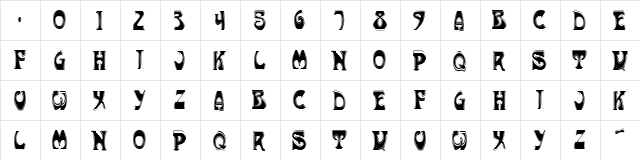
NouveauUneInline Regular
Design Context for NouveauUneInline Typeface
NouveauUneInline brings ornamental detail and strong personality to headlines and identities, where visual impact matters more than quiet functionality.
Font Pairing: Pair with a clean neutral sans-serif for body copy to let NouveauUneInline's character lead without overwhelming the composition.
Pro Tip: Use NouveauUneInline exclusively at display sizes — it was designed to be seen, not read at length. Let a neutral companion handle body copy.